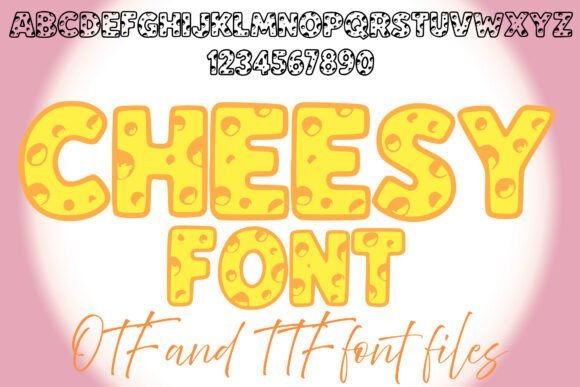
The Birth of a Melted Masterpiece
Who among us hasn’t been struck by inspiration while indulging in a gooey grilled cheese sandwich? The melty goodness and playful charm of a perfectly crafted cheese delight can spark even the most mundane ideas into something truly special. And that’s exactly what happened when our design team set out to create a font that captured the whimsy of a cheesy treat.
Introducing Cheesy Font, a delightful typographic creation that embodies the spirit of a warm, cheesy hug. Its chunky, cheese-textured letters are designed to bring a smile to the faces of kids and adults alike, making it perfect for a variety of applications, from food packaging to party posters.
Cheesy Font Key Features
- Unique Characteristics: Distinctive, playful, and whimsical design elements, including wavy lines and irregular shapes
Designer Review: Cheesy Font
At first glance, Cheesy Font is a bit of an oddity. However, I have to admit that I found some aspects of it to be quite ✨ charming. The font’s playful, distressed aesthetic has a certain nostalgic appeal to it.
- The font’s whimsical feel makes it perfect for casual, creative projects, such as social media graphics, posters, or even a personal blog.
- Cheesy Font comes in a variety of weights and styles, giving users a range of options to choose from and customize their designs.
- It’s also great for adding a bit of humor or irony to a design, making it stand out from more serious or traditional fonts.
However, as with any font, there are some limitations to consider ⚠️. Cheesy Font may not be the best choice for formal or professional projects, as its playful aesthetic may come across as unprofessional or immature.
Additionally, some users may find the font’s distressed texture to be overwhelming or distracting, particularly in large blocks of text.
Overall, I’d say that Cheesy Font is a fun, quirky font that’s perfect for the right project. While it may not be suitable for every design, it’s a great addition to any font collection for those who want to add a bit of personality to their work.
Practical Application Guide: Cheesy Font
Use Cheesy Font to add a playful touch to your designs, particularly in headings and titles. It’s also effective in creating a nostalgic or retro vibe. Avoid using it in formal or professional designs, as it may come across as unprofessional. Experiment with different font sizes and colors to get the most out of Cheesy Font.